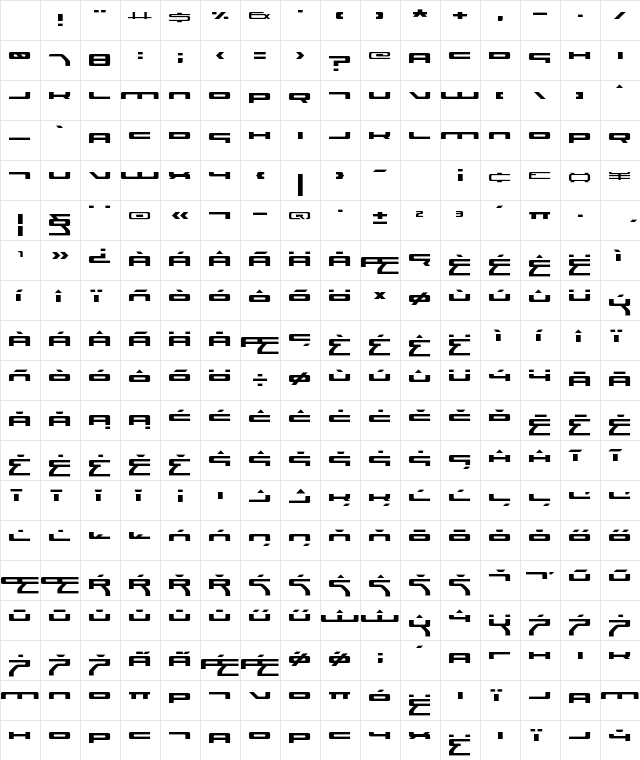
Complete Surgeon Regular glyph index. Displaying only characters natively supported by Surgeon Regular font.
Surgeon is a composed and adaptable typeface that performs quietly and consistently across a wide range of design contexts.
Who designed the Surgeon Regular font?